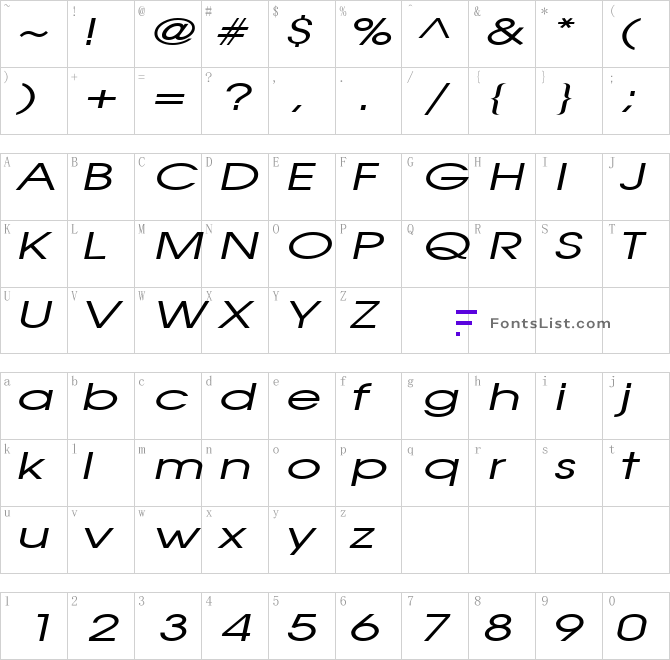
- Font Name:Atilla Extended
Atilla-Extended-Italic.ttf is a very beautiful artistic font, Atilla-Extended-Italic.ttf is widely used in the design and printing of various books and pictures,Atilla-Extended-Italic.ttf has a strong visual impact,Atilla-Extended-Italic.ttf is a commonly used font in newspapers, magazines and books, and is used in posters, e-commerce Poster design, store design, logo design, font design and other fields.Atilla-Extended-Italic.